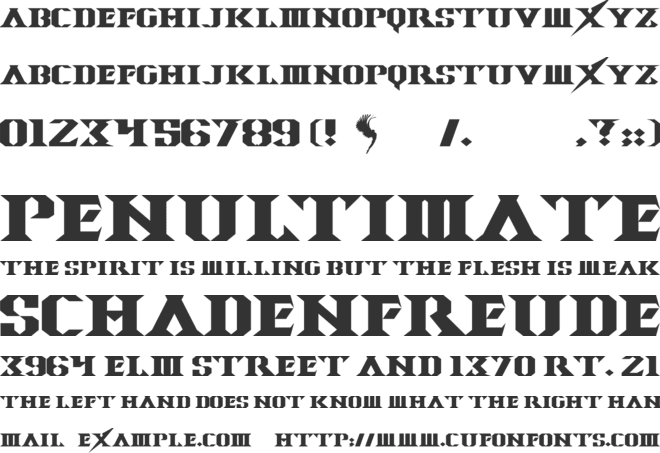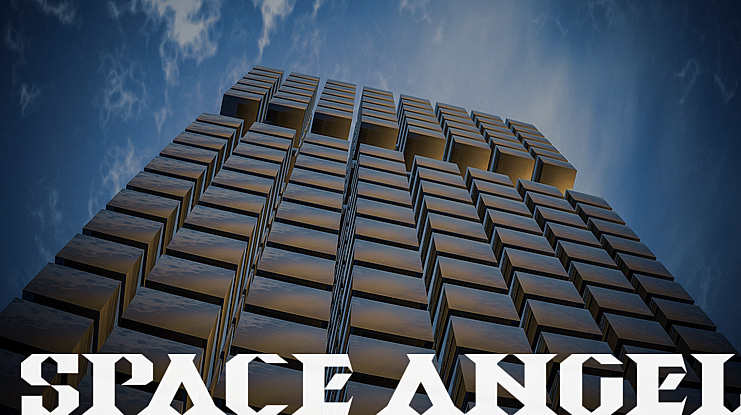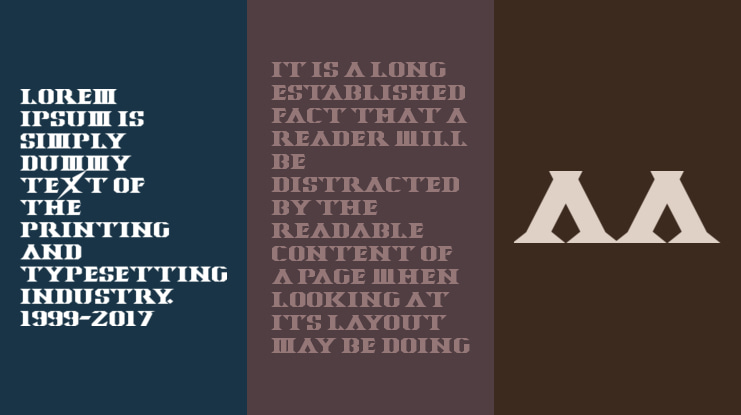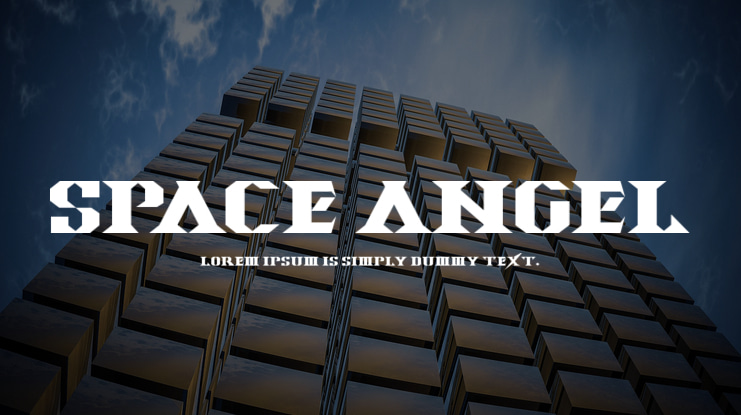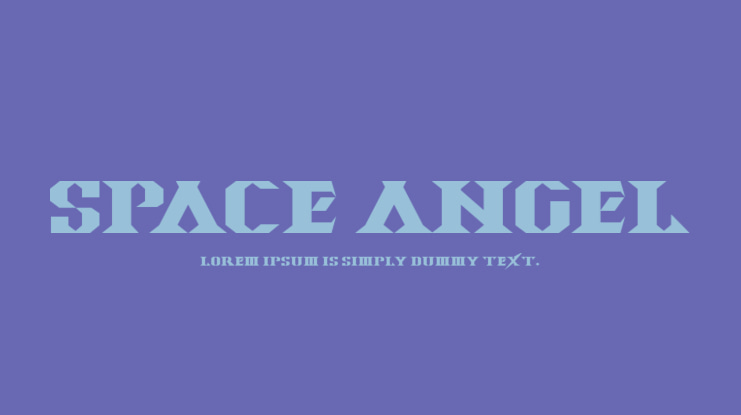
Space Angel Font
After nearly 15 years since my last font your friend and humble designer is back in action. This is my first one in a very long time. Unlike many of my previous "famous" fonts this one
was plucked from the sky or shall we say the stars. The contours and pointy nature of Space Angel is sharp and futuristic with the X resembling a star. The # and " will give you an angel. The
capitals double as lowercase letters and there's limited punctuation because this wasn't designed to have a full character set.